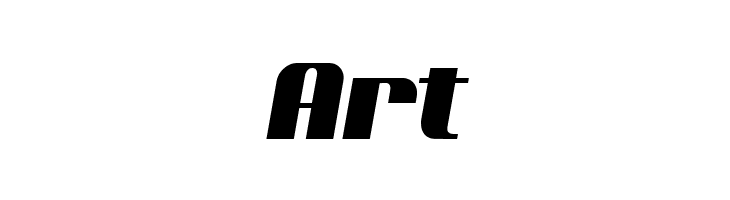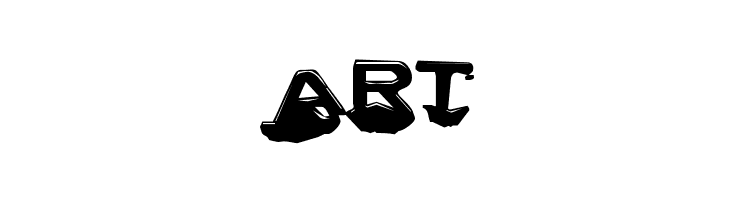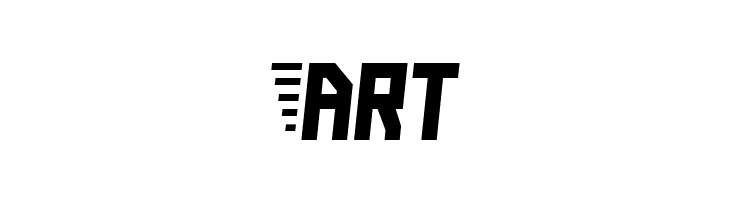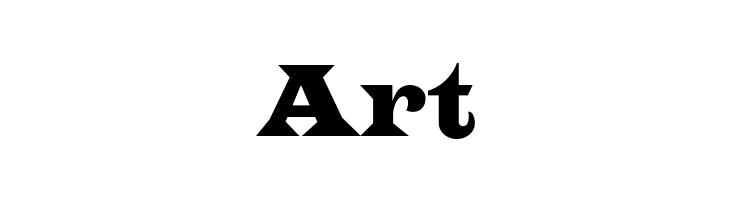
A bold, italic font with a dynamic and energetic style.
A bold, geometric font with strong, thick strokes and high contrast.
A bold, modern serif font with high contrast and sharp serifs.
A bold, geometric font with a futuristic and digital-inspired design.
A bold serif font with dramatic, angular serifs and a vintage-modern appeal.